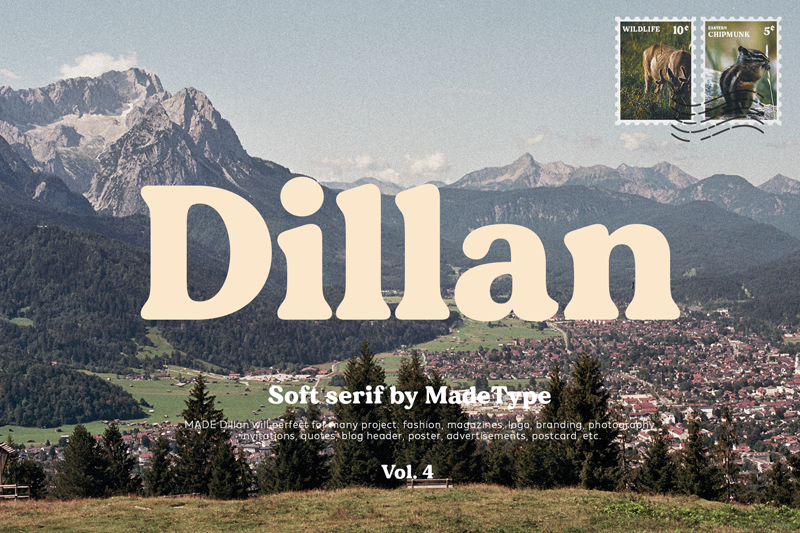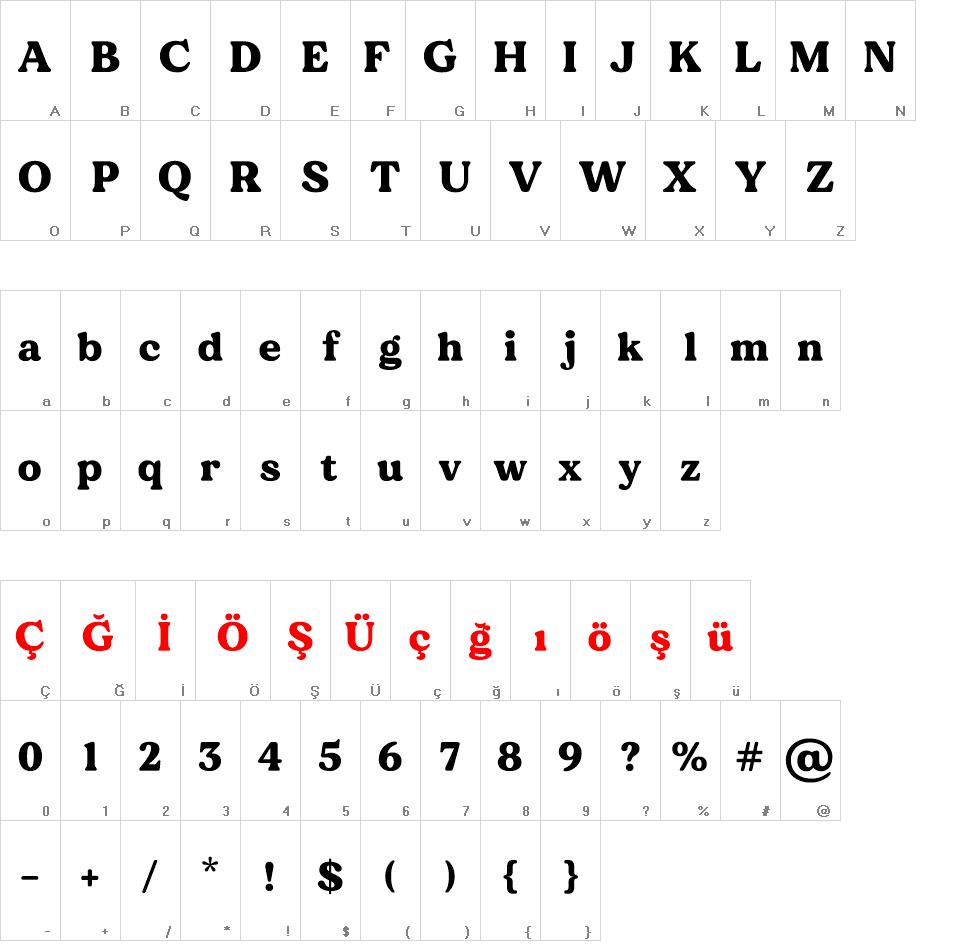
MADE Dillan is a soft serif typeface.
MADE Dillan will perfect for many project: fashion, magazines, logo, branding, photography, invitations, quotes, blog header, poster, advertisements, postcard, etc.